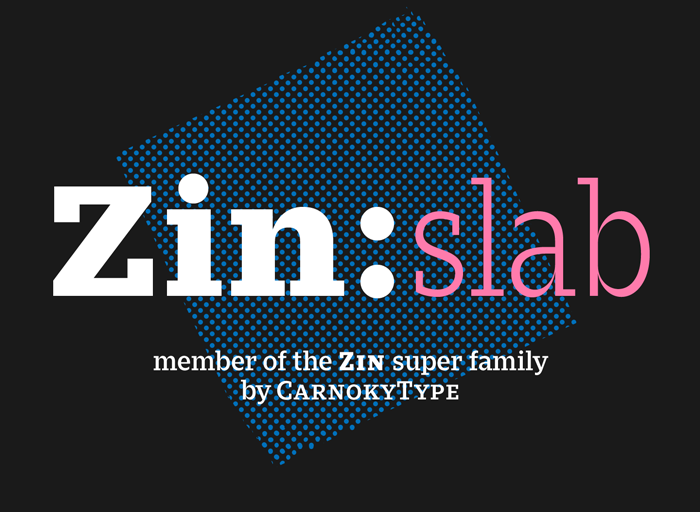
Zin Slab Font Family
Start a new day with a family of modern and stylish fonts. Introducing Zin Slab Font Family! Zin Slab Font designed by CarnokyType.Zin Slab is a contemporary slab-serif typeface designed for various situations of typographic usage. Characteristic feature is a large x-height and balans between neutral construction of letters (strictly vertical axis) and dynamic open forms (opened terminals). Another typical feature is a visually narrower connection between stems and strokes.